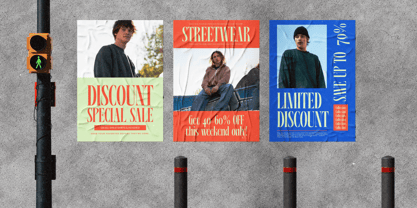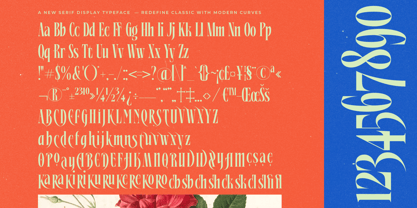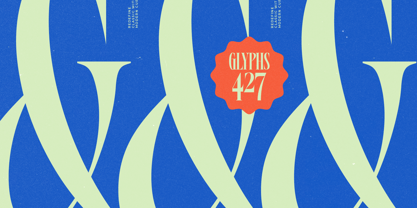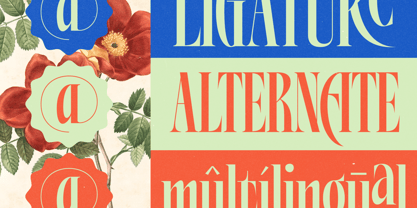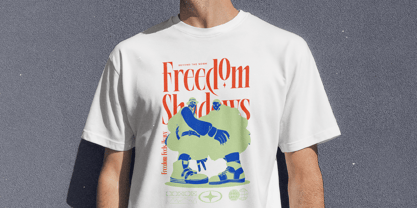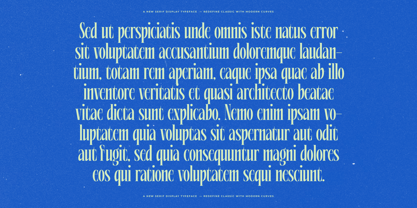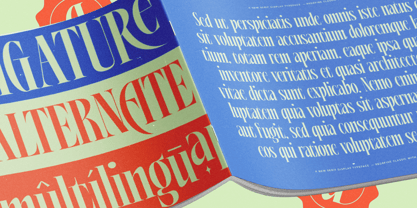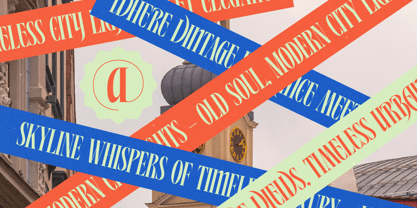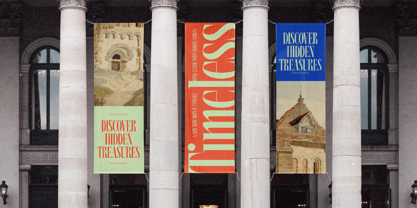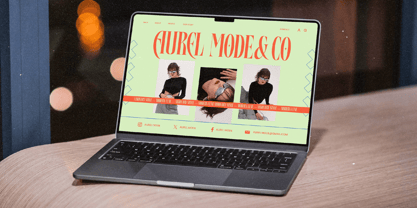
Alkemiogu
by Timelesstype Studio
The Alkemiogu Font Family was designed by Heru Utama Putra and published by Timelesstype Studio. Alkemiogu contains 2 styles and family package options. More about this family
Alkemiogu - A New Serif Display Typeface , from Timelesstype , Suitable for any projects such as: logos, branding projects, homeware designs, product packaging, mugs, quotes, posters, shopping bags, t-shirts, book covers, name card, invitation cards, greeting cards, label, photography, watermark, special events, and all your other luxury and beautiful projects that need a Luxury Serif taste.